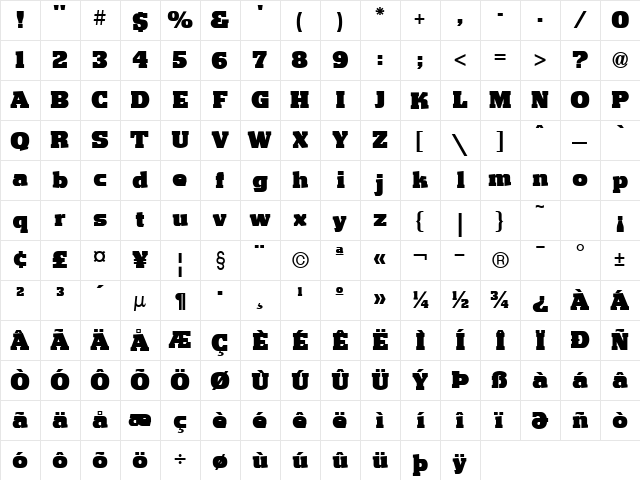
Guts ICG Regular Font Preview
Guts ICG Regular
Guts ICG Regular Font Details
Design Context for Guts ICG Typeface
Guts ICG offers clean, dependable letterforms without strong stylistic allegiance, making it a practical choice for designers who need flexibility.